What Font to Use on a Flyer: Top 30 Picks for 2025
What font to use on a flyer depends on the message you want to convey and the audience you’re trying to reach. Generally, a bold, attention-grabbing headline font makes flyers stand out. But, for more information, let’s take a lesson from the popular fonts and get some refreshing inspiration from our collection!
Key Takeaways:
- Combining readability and brand identity is the most important aspect.
- Mixing rigid or bold fonts with a more delicate choice can decorate your flyer while keeping an informative narration.
Answering What Font to Use on A Flyer
The popular choices are famous for a reason, so let’s look at some of the popular choices for flyer fonts first and then put our unique spin on them. Following is the list of standard fonts you can find in Google or Canva to put on flyer designs.
- Montserrat Classic,
- Yellowtail,
- Oswald,
- Abhaya Libre Regular,
- Bodoni,
- Roboto,
- Futura,
- Garamond,
- Merriweather, and
- Playfair Display.
These fonts are dominated by serif and sans serif font while prioritizing legibility and a professional look. With these references, let’s find out how we can elevate these typefaces to more personalized visuals.
Our Take on What Font to Use On A Flyer
We’ve compiled our top fonts with great legibility and attention-grabbing visuals. Let’s meet them one by one!
1. Maxim
Maxim is a tall sans-serif font with all-caps letters. This font has 3 styles, namely solid, sketch, and rough. Its tall and condensed letters easily grab attention and excite your flyer.
2. Black Street
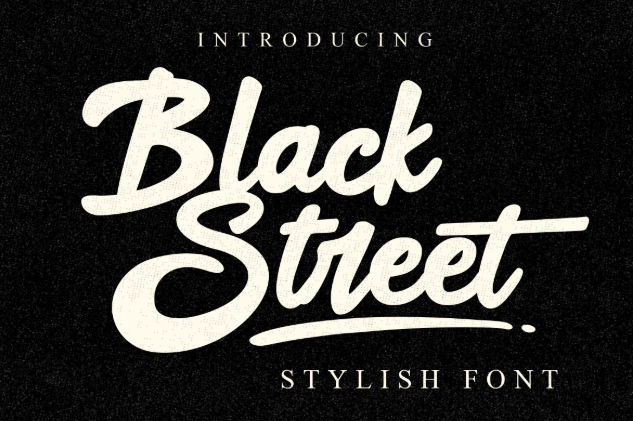
Black Street is a mix of display and script font to demonstrate bold, flowy lines in a vintage and elegant look. With this font, your flyer remains artsy and informative.
3. Modern Deluxe
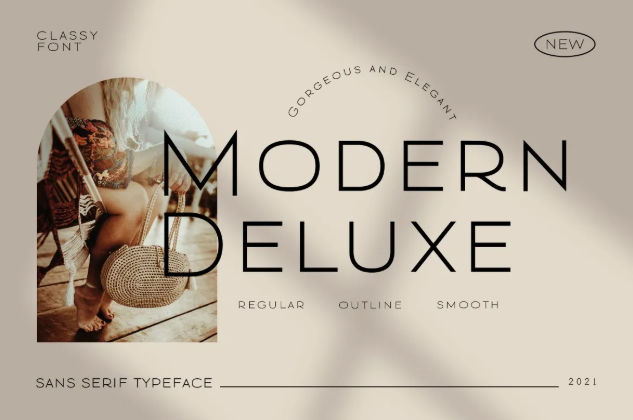
Modern Deluxe uses sharp and clean sans-serif letters with minimalist and elegant strokes to accentuate modern visuals. This font outlined options to elevate your design.
4. Link Heart
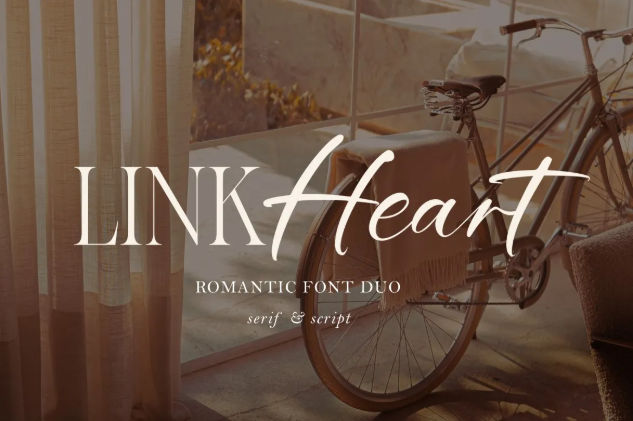
Link Heart font duo is the perfect combo to decorate flyers. This font wed romantic serif and script typefaces, birthing cohesive aesthetics.
5. Paladise
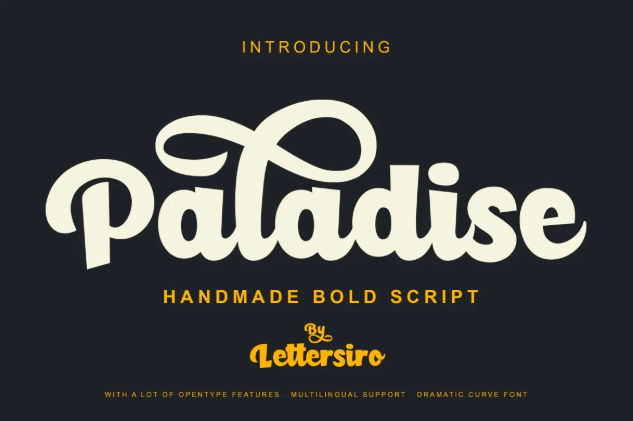
Paladise is a bold script font that balances vintage and modern looks. This font fuses circular, oval, and flared strokes to achieve a unique look, plus offers numerous alternates for each letter.
6. Amsterdam in Nederlands
This font is a familiar and professional option to create formality for your flyer. Amsterdam in Nederlands perfectly highlights the classic beauty of a serif typeface.
7. Bella Hanna
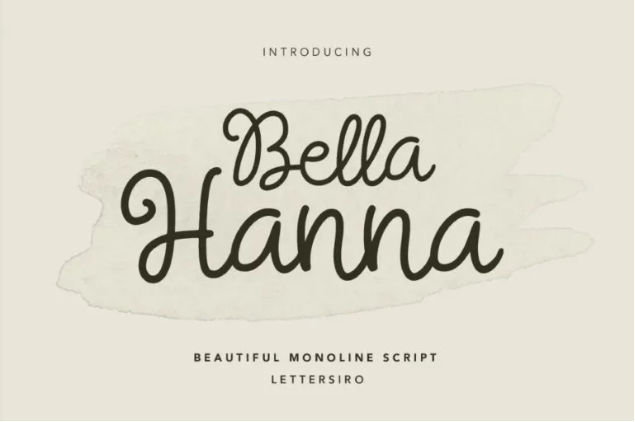
Bella Hanna is a feminine script font with a monoline typeface. This font offers wild swashes and letterforms. Of course, with beauty, joyful, and artistic approach.
8. Signatime
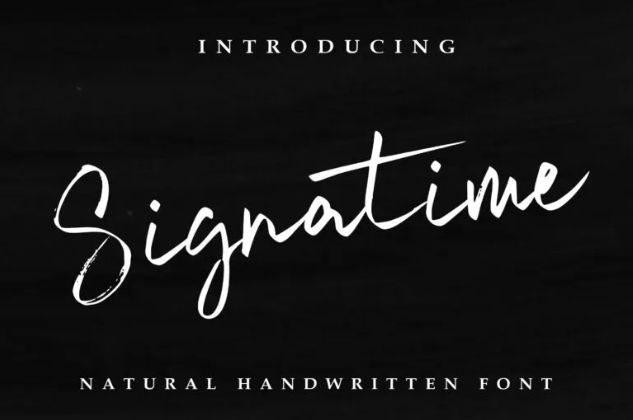
If you’re tired of rigid fonts, Signatime can add a nice touch to your flyer. This font mimics handwritten letters with dry marker strokes, creating a more human-like touch.
9. Friday
Friday is essentially a bold serif font with more loose letterforms. This font combines thick, strong letters while keeping curvy edges, emanating an adventurous vibe.
10. Vintage Quotes
Vintage Quotes is a bold script font with carefree and careless strokes through natural italic and wet ink appearance. Yet, it still keeps legibility and elegance in mind.
11. Sandiego
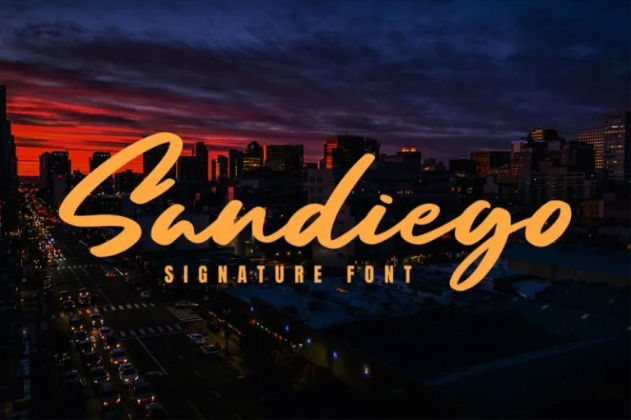
There’s no question what font to use on a flyer when you know Sandiego. Its bold look provides great legibility and its cursive style gives soothing vibes.
12. Maillove
Maillove is made especially for branding or short texts with its charming and supple cursive style. Create a friendly formal look for an exclusive flyer with this font.
13. Think Smart
Think Smart is a modern handwritten font with fun and joyful aesthetics that attract attention. This font is perfectly fit for representing light-hearted and artistic concepts.
14. Grooving
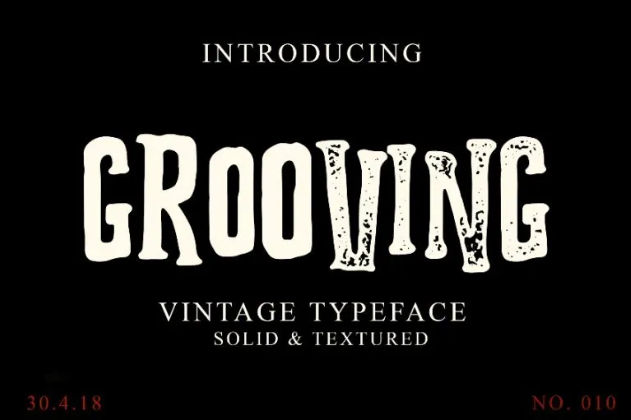
If you want a quirky font, try Grooving. This font has solid and textured visuals. Plus, its uneven height creates a more dynamic design.
15. Mentega Script
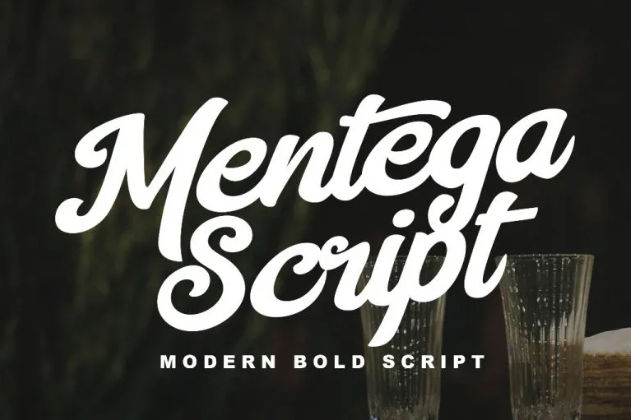
Mentega Script displays a cool and confident concept. This bold script is commonly used in apparel, hence using it on your flyer evokes a more familiar feel.
16. Smelling
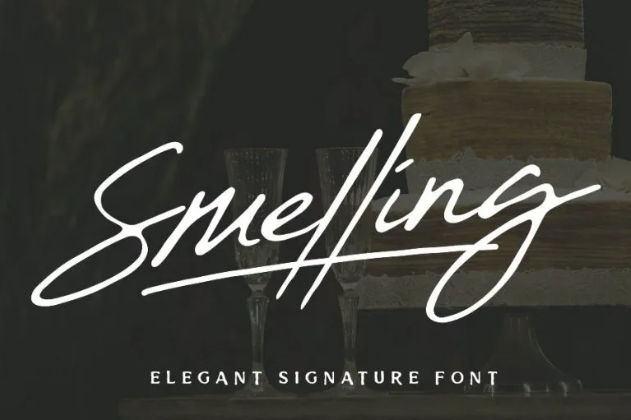
Smelling is another signature font with a confident look with an especially strong vertical stroke. Dynamically, this font also displays delicate writing in its curvy letters.
17. Brown Chocolatte
Using Brown Chocolatte, a font duo featuring serif and script styles, is a modern solution for your flyer designs. Both typefaces exhibit elegant and classic visuals with a harmonious concept.
Now You Know What Font to Use on A Flyer
Based on the list in this discussion, you can decide what is a good font to use on a flyer. Start by defining your purposes, don’t overlook legibility, but don’t either drop the aesthetic value.